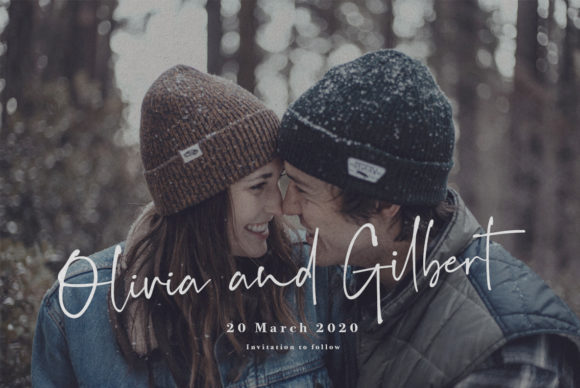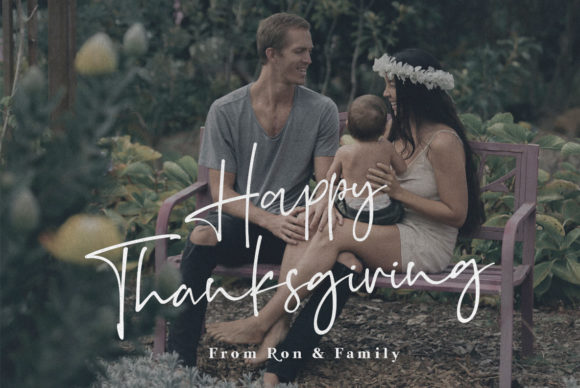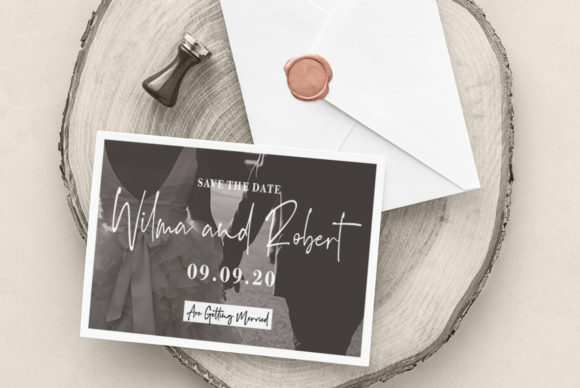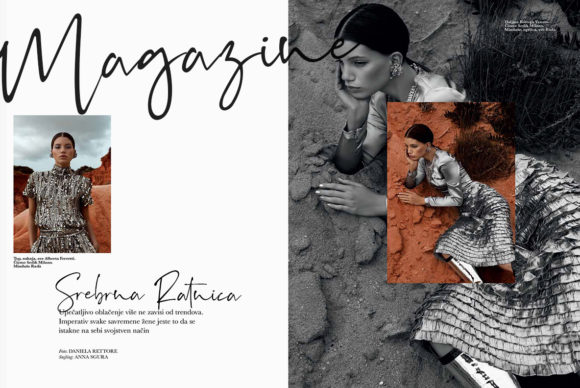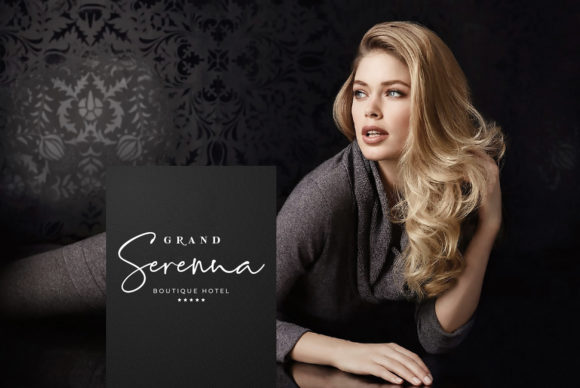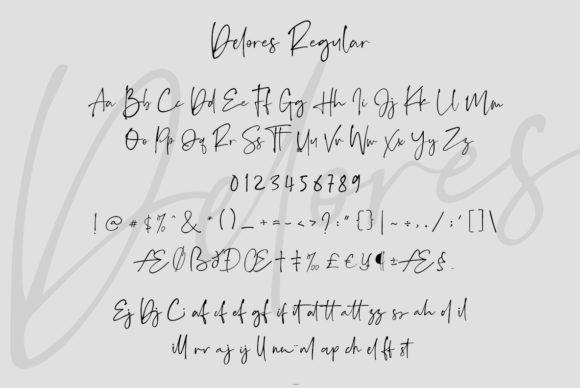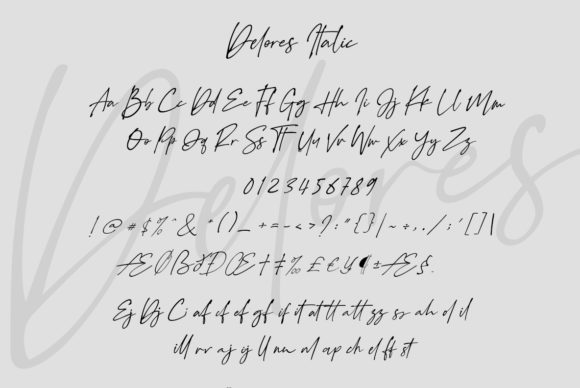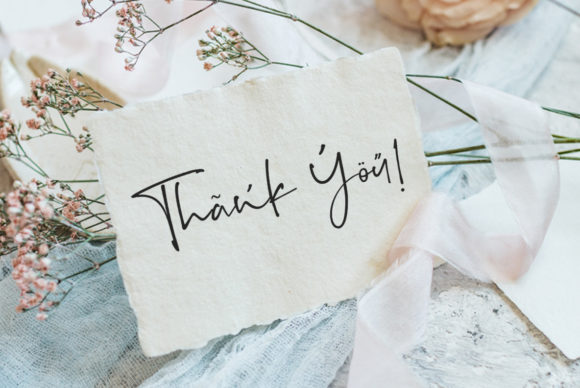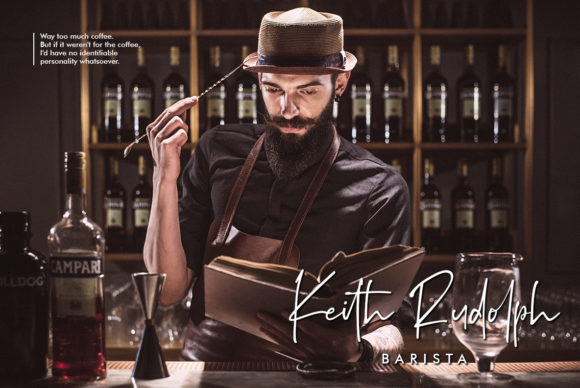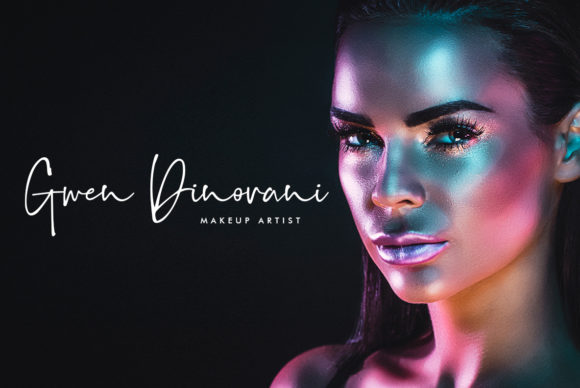
Delores Font
About Delores Font
Delores is an incredible handwritten font with an organic feel. It will elevate any creative project with its sophisticated and authentic appeal.